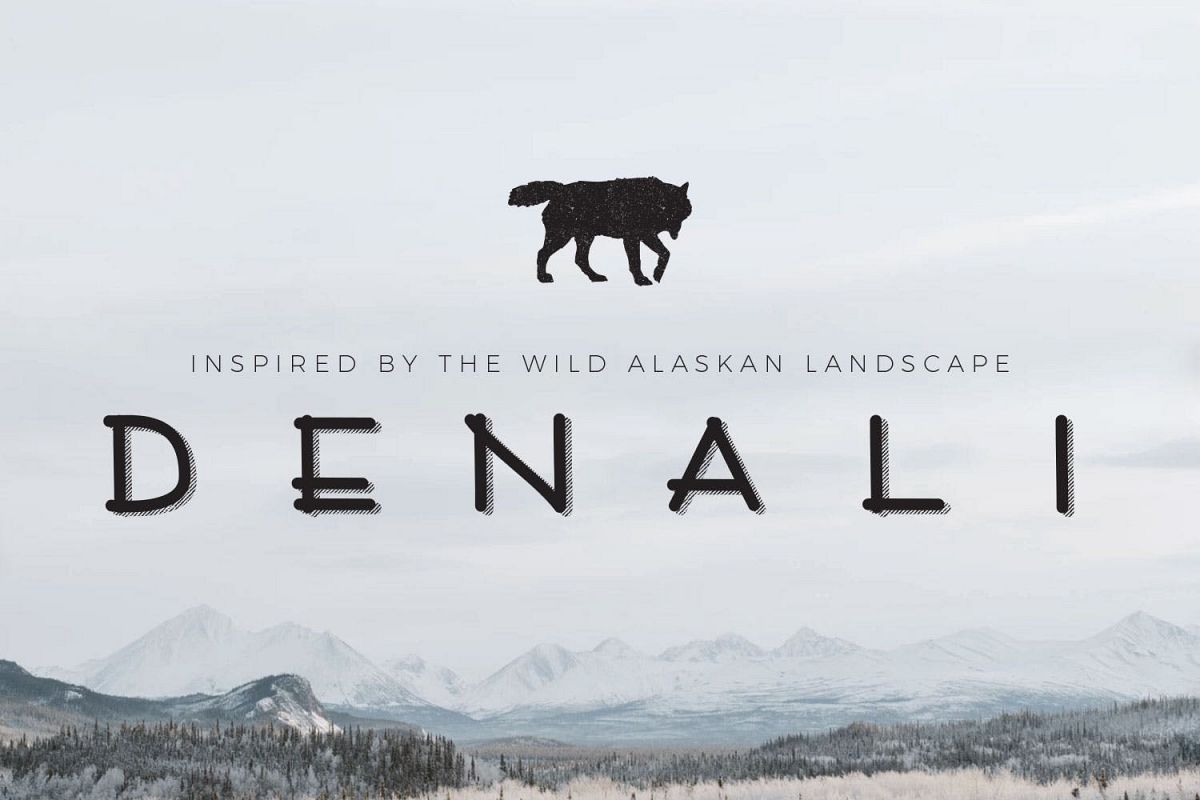
Denali | A Wild Alaskan Sans-Serif
A little retro, a little organic, Denali font evokes the endless skies and ranges of the great Alaskan wilderness and the park that lives within.